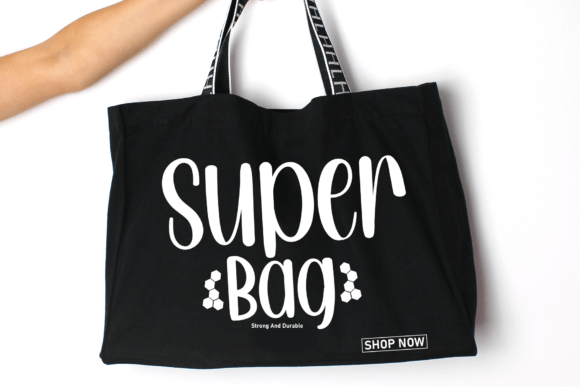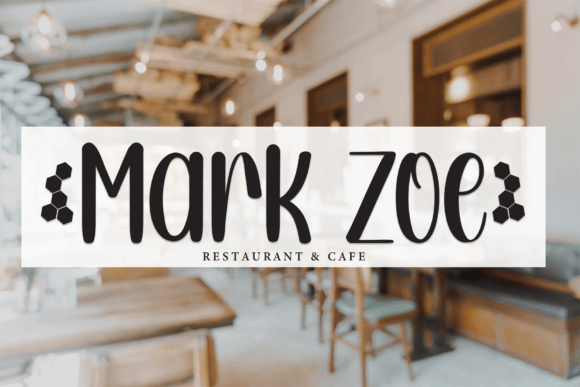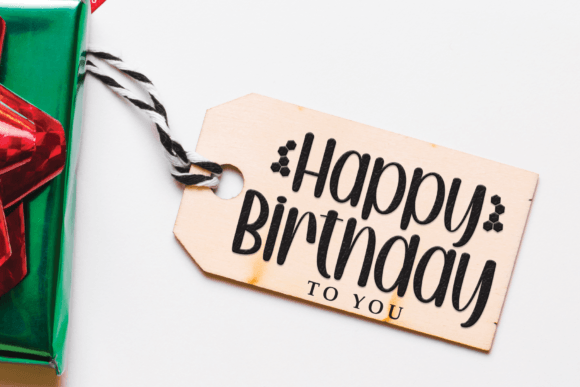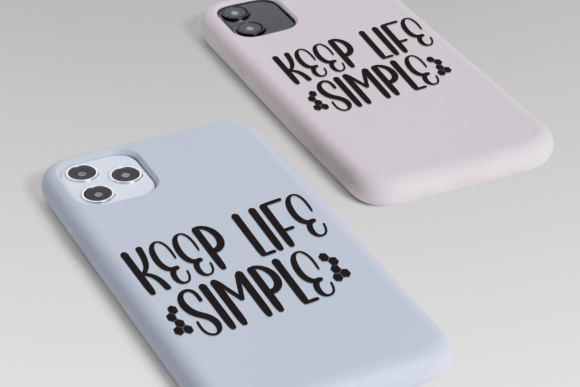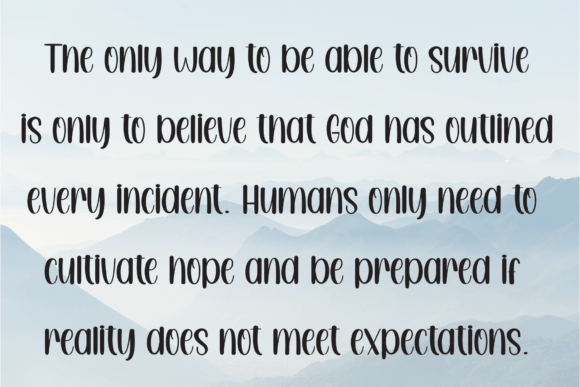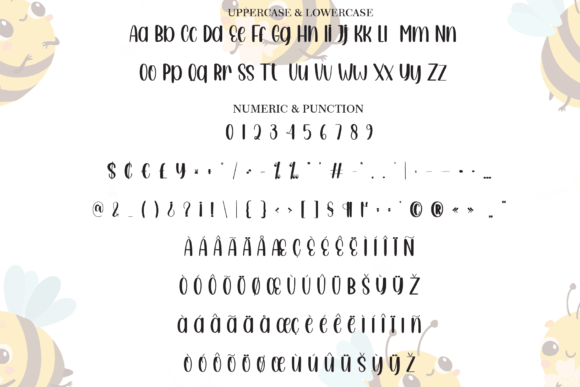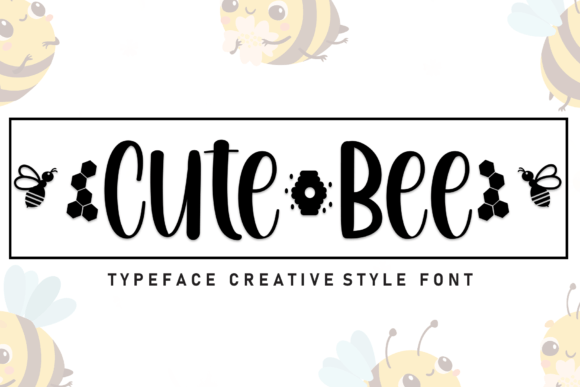
Cute Bee Font: Add a Sweet Touch to Your Designs
Are you looking for a font that can add a lovely touch to your designs? Look no further than Cute Bee Font! This sweet and friendly handwritten font is perfect for creating beautiful wedding invitations, cards, and other designs that require a fresh and casual feel.
What is Cute Bee Font?
Cute Bee Font is a handwritten font designed to bring a touch of sweetness and friendliness to your designs. Its fresh and casual style makes it ideal for a variety of projects, from wedding invitations and cards to craft projects and DIY designs.
Characteristics of Cute Bee Font
Cute Bee Font has several characteristics that make it a great choice for designers and crafters:
• Sweet and Friendly: The font has a sweet and friendly feel that is perfect for creating designs that require a personal touch.
• Handwritten: The font is handwritten, which gives it a unique and personal feel.
• Fresh and Casual: The font has a fresh and casual style that is perfect for creating designs that require a relaxed feel.
Uses of Cute Bee Font
Cute Bee Font can be used for a variety of projects, including:
• Wedding Invitations: The font is perfect for creating beautiful wedding invitations that require a sweet and friendly touch.
• Cards: The font can be used to create lovely cards for special occasions, such as birthdays, anniversaries, and holidays.
• Craft Projects: The font is great for craft projects, such as scrapbooking, journaling, and paper crafting.
• DIY Designs: The font can be used for DIY designs, such as signs, banners, and posters.
Benefits of Using Cute Bee Font
There are several benefits to using Cute Bee Font in your designs:
• Unique and Personal: The font adds a unique and personal touch to your designs.
• Easy to Read: The font is easy to read, making it perfect for designs that require a clear and concise message.
• Versatile: The font can be used for a variety of projects, from formal to informal designs.
Here are some tips and tricks for using Cute Bee Font:
• Use it with Other Fonts: Use Cute Bee Font with other fonts to create a unique and interesting design.
• Experiment with Colors: Experiment with different colors to find the perfect match for your design.
• Play with Sizes: Play with different font sizes to create visual interest in your design.
Cute Bee Font is a sweet and friendly handwritten font that is perfect for adding a lovely touch to your designs. Its fresh and casual style makes it ideal for a variety of projects, from wedding invitations and cards to craft projects and DIY designs. With its unique and personal feel, ease of use, and versatility, Cute Bee Font is a great choice for designers and crafters.